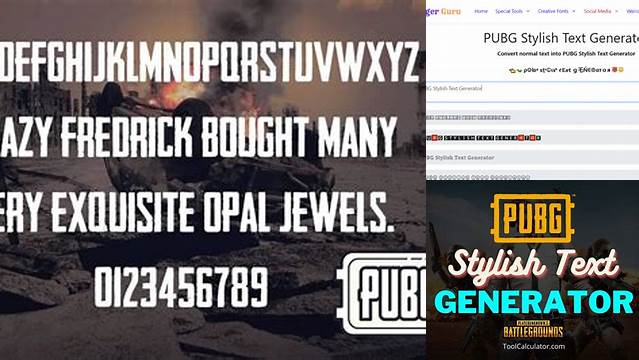
PUBG Fonts: Copy & Paste For Unique Names & Chat
Are you ready to transform your PUBG username and chat messages? This guide will show you how to use fonts copy paste PUBG to create unique and eye-catching text. Ditch the boring default font and embrace a world of stylish characters and symbols. Get ready to stand out from the crowd and make your mark in the battlegrounds. This article provides a comprehensive understanding of using different fonts in PUBG, ensuring your in-game presence is as unique as your gameplay. Let's dive in and explore the creative possibilities of fonts copy paste PUBG!
H2: Mastering the Art of Fonts Copy Paste PUBG
Fonts copy paste PUBG isn't just about changing your username; it's about expressing yourself in a visually appealing way. You can utilize various online tools and font generators to create unique text styles that catch the eye of your teammates and rivals alike. The process is straightforward: find a font you like, copy the stylized text, and paste it into the PUBG platform where you want to use it. From your in-game name to chat messages, the possibilities are limitless. With fonts copy paste PUBG, you're no longer restricted to the standard font. You can incorporate bold, italic, or even more elaborate fonts that make your profile or in-game communication stand out. This can range from simple tweaks like a bold username to more complex designs using various symbols and font styles. The key is to experiment and find what best represents your style and personality in the game. Using fonts copy paste PUBG effectively enhances your online presence and helps you create a more personalized gaming experience.
This method can be particularly effective in grabbing the attention of others. Think of it as the digital equivalent of graffiti, but instead of walls, you're using your username and chat to showcase your creativity. The aesthetic impact of fonts copy paste PUBG is not just about showing off; it also acts as a form of self-expression. It's about customizing your virtual identity, which can significantly enhance your gaming enjoyment. The options are as varied as the people playing the game. You can choose fonts that reflect your personality, preferences, or even your current mood. It’s also a great way to build a personal brand within the game. Consider how a distinctive username can become memorable and recognizable, especially when coupled with impressive gameplay. This strategy could eventually lead to increased recognition and perhaps even make you a known entity in the PUBG community. Furthermore, the visual uniqueness of your font choices can attract attention during live streams and videos. Streamers and content creators often leverage the power of unique fonts to make their channel stand out from the crowd. With fonts copy paste PUBG, you are equipping yourself with the tools to establish a stronger, more personalized gaming presence. The ability to customize your fonts, and in turn, your overall digital identity, offers a freedom that the default options can’t provide.
H3: Selecting the Right Font for PUBG
Choosing the perfect font is crucial for making a strong impression with fonts copy paste PUBG. The ideal font should be readable, even in the heat of battle, and visually appealing. Consider fonts that are bold, clear, and easy to distinguish from others. This is particularly important if you plan on using the font for your username. A name that is easily recognizable can help you stand out and build a reputation within the game. When selecting a font, think about the overall aesthetic you're aiming for. Do you want something simple and clean, or something more elaborate and stylized? Many online font generators offer previews of how your text will look in various fonts, allowing you to experiment and find the perfect fit. Look for fonts that are compatible with the PUBG game client to ensure they render correctly. Some unusual fonts might not be fully supported, and you might end up with a garbled or missing username. Compatibility is a key factor for guaranteeing that your creative efforts are effective. Choosing the right font also aligns with the overall context of the game. It is an intense, fast-paced game where clear communication is important, so while aesthetics matter, practicality should come first. Fonts that are difficult to read can hinder your ability to communicate effectively with your team, which can ultimately impact your gameplay. Therefore, carefully consider the balance between style and function. The goal is to enhance your identity in the game and ensure that your chosen font complements the rest of your in-game experience. Carefully consider what kind of message you want to send, whether it is to project confidence, a bit of fun, or to establish yourself as a serious gamer. Ultimately, the right font will enhance your presence in the world of PUBG, giving you an edge that goes beyond gameplay alone.
H2: Step-by-Step Guide to Fonts Copy Paste PUBG
Navigating the process of fonts copy paste PUBG is remarkably straightforward. First, you'll want to find a reliable font generator online. Several websites offer this service, providing a vast selection of stylish fonts and symbols. Once you've selected a generator, simply type in the text you want to transform, such as your desired PUBG username. The generator will then display your text in a variety of fonts. Browse through the options until you find one that you like. When you've found your preferred font, highlight the text, and copy it using your computer's standard copy function. This might involve right-clicking and selecting 'Copy' or using the keyboard shortcut Ctrl+C (Windows) or Cmd+C (Mac). Next, launch PUBG and navigate to where you want to use the font. This could be the username section of your profile or a chat window. Paste the copied text using the paste function (right-click and select 'Paste' or use the keyboard shortcut Ctrl+V or Cmd+V). If you are changing your username, you may need to confirm the change in-game. That's it. Your text should now appear in the chosen font within PUBG. If the font does not appear as expected, double-check that the game supports the symbols or the font type. Sometimes, due to compatibility issues, certain symbols might render differently or not at all. If you encounter any issues, you might need to try a different font or symbol set. The ability to copy and paste fonts allows for a highly customizable experience, enabling you to express your unique style within the game. The process is user-friendly and allows for quick and effortless customization of your in-game identity. With a few simple steps, you can personalize your profile and chat messages, enhancing your overall gaming experience. The main objective is to add flair and uniqueness to your game interactions, helping you stand out in the diverse world of PUBG.
H3: Troubleshooting Common Font Issues in PUBG
Even with the simplicity of fonts copy paste PUBG, occasional issues may arise. The most common problem is font incompatibility. Some fonts or symbols may not be supported by the PUBG game client, causing them to appear as question marks, boxes, or not at all. If you encounter this, try a different font from the generator. Another potential issue is character limitations. PUBG may have restrictions on the number of characters allowed in usernames or chat messages. If your chosen font uses complex characters or symbols, it could exceed these limits. To resolve this, try shortening the text or choosing a font that uses fewer characters. Also, keep in mind that sometimes special characters can cause problems. Some font generators include characters that are not universally supported, which can lead to rendering issues. The game might not support those characters, leading to these characters being replaced with default symbols. It's crucial to choose fonts with characters that are broadly compatible across various systems to avoid this issue. Another factor is game updates. Game updates sometimes introduce changes to the game's text rendering system, which might affect how fonts are displayed. If you notice that your fonts suddenly look different, check for game updates or check online forums to see if other players are experiencing the same problem. This information can help you identify if the issue is related to the game's updates. Consider checking forums or communities of PUBG players. They are often a valuable source for troubleshooting. Fellow players might offer solutions or workarounds for font issues. By staying active in these online forums, you may learn about new font generators or character sets that are particularly compatible with the game.
H2: Enhancing Your PUBG Experience with Fonts
Using fonts copy paste PUBG is a great way to add personality and flair to your PUBG experience. It goes beyond the basic in-game features and allows you to express your unique style. A customized username using a cool font can make you more memorable to other players. It provides a memorable first impression during interactions, setting you apart from the crowd. Imagine being known for your unique username that is instantly recognizable. This type of recognition can add to your in-game reputation and even your overall enjoyment of the game. Moreover, the use of attractive fonts can also improve communication in chat. Being able to express yourself through visually appealing fonts can add a layer of fun to your interactions. Whether you are coordinating with your team, trash-talking your opponents, or just engaging in friendly banter, unique fonts can significantly enhance the tone and enjoyment of these conversations. In addition to this, you can utilize unique fonts to establish a personal brand. You can choose a font style that complements your play style, personality, or even your in-game achievements. This personalized approach allows you to create a more distinctive identity, helping you stand out and be remembered in a vibrant gaming community. Beyond the aesthetic appeal, incorporating unique fonts in PUBG also enhances the overall gaming experience by making it more engaging and enjoyable.
H3: Font Generators and Tools for PUBG
Several online tools and font generators make fonts copy paste PUBG easy. These tools are designed to generate stylized text that can be directly copied and pasted into PUBG. Some popular options include websites and apps that specialize in text conversion. These platforms provide a diverse selection of fonts, styles, and symbols that you can use to create unique usernames and messages. When choosing a font generator, consider the ease of use and the variety of fonts offered. Look for tools that have a simple and intuitive interface. You should also check if the tool provides previews of your text in various fonts to ensure that it looks appealing and is readable. Some tools also offer additional features, such as the ability to customize your text with special symbols and emojis. Another critical factor when choosing a tool is the availability of different font styles. Some generators have a comprehensive library of fonts, ranging from simple to elaborate, giving you a wide selection to choose from. Explore the tools to find the fonts that best fit your style and gaming preferences. Besides, there are specific apps available for mobile users that facilitate the process of font generation and copying, making it convenient to customize your in-game text while on the go. Remember, the best font generator is the one that meets your specific needs. Do not be afraid to explore different tools and experiment to see which one offers the fonts and customization options you like. Before using any font generator, always ensure that it is secure and safe to use. Be aware of the potential risks of using third-party tools and stick to reputable sites and applications to avoid any security risks or other issues.
H2: Creative Uses of Fonts in PUBG
Fonts copy paste PUBG unleashes your creativity, opening doors to many unique ways to personalize your gaming experience. Beyond your username, you can use different fonts for various aspects of in-game communication. Think about using stylized fonts for your clan tag to make it more visible and recognizable. This is a perfect way to boost your team’s brand and create a stronger identity within the game. Clan tags written in unique fonts quickly draw attention and provide a visual cue to your team. Additionally, using fonts in your chat messages can create a more engaging and visually interesting experience. Spice up your team communication by using different fonts for callouts, strategies, or even just friendly banter. Using different fonts can also help organize information, making it easier for your team to understand crucial in-game instructions. You can use bold fonts for important information or italic fonts for strategic suggestions. Moreover, unique fonts can enhance the look of any content you might create about the game. This could include YouTube videos, live streams, or written guides. Eye-catching titles and descriptions can make your content stand out from others, attracting more viewers and increasing the chances of your content being noticed. Another creative approach is using different fonts to highlight specific elements. Consider using them to announce special events or to emphasize the unique characteristics of your gameplay style. You can use a flamboyant font style to highlight a memorable in-game achievement.
H3: Font Customization for PUBG Names and Clan Tags
Customizing your PUBG username and clan tag with fonts copy paste PUBG is one of the most common uses. It enables you to stand out and express your unique personality. A custom username can be more memorable and can become a part of your personal brand within the game. Choose a font style that reflects your play style or personality. Whether you are a serious competitive player or someone who enjoys casual gameplay, there is a font style that can suit you. Consider choosing a font that is easily readable, even during intense in-game situations. The primary function of your username is to represent you, and readability ensures that others can quickly identify you. Furthermore, the use of fonts can create a more professional appearance for your clan tag. A unique clan tag with an eye-catching font can attract players and give a sense of unity and identity to your group. Clan tags are a significant part of creating the identity of a squad. Using a font that differentiates your clan's tag can establish a strong image and cohesion within the PUBG community. The font choice should reflect the values and the brand of your clan. Consider how bold fonts may suggest confidence and power, while more subtle fonts may reflect a team that values sophistication and precision. Make sure to choose fonts that are compatible with the PUBG game client. Some fonts and special characters may not be supported, so always test your customized username or clan tag to ensure it renders correctly. Your customized usernames and clan tags should always be consistent and recognizable. This helps you and your team to quickly identify each other in the game.
H2: Conclusion: Embrace Your Style with Fonts Copy Paste PUBG
With fonts copy paste PUBG, you can create a more distinctive and enjoyable gaming experience. From selecting the perfect font to troubleshooting compatibility, this guide has provided you with the knowledge you need to customize your in-game presence. So, go ahead, experiment with various fonts, personalize your username, and let your creativity shine. Transform your PUBG profile into a visually stunning experience that reflects your unique style. The ability to use fonts copy paste PUBG allows you to express yourself and stand out in the bustling world of PUBG. Enhance your in-game identity with unique fonts. Your unique style and personality will not only bring enjoyment but also help you connect with others. So, embrace the power of fonts copy paste PUBG and start your journey towards a more personalized and engaging PUBG experience. This guide gave you the tools and knowledge to unlock the potential of fonts copy paste PUBG. The time is now to transform your PUBG experience. Happy gaming!